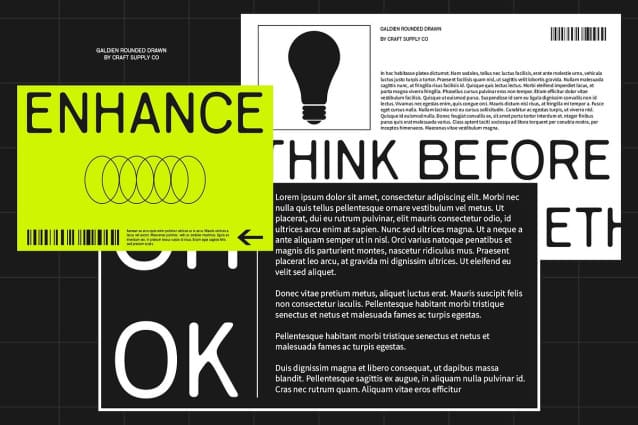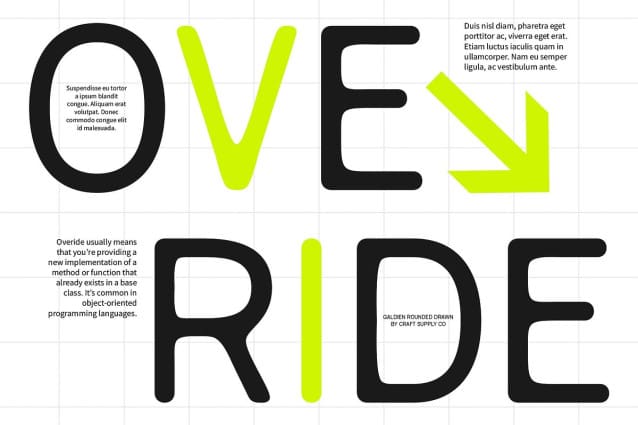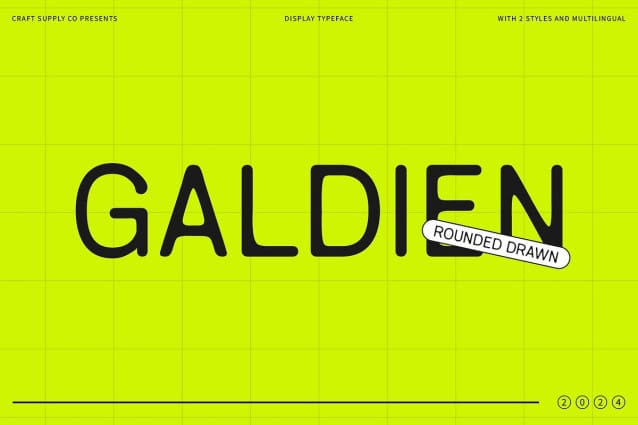
Galdien Rounded Drawn Font
Galdien Rounded Drawn Font is a modern sans-serif font that combines grotesque, rounded shapes with a distinctive drawn effect. The smooth, rounded edges bring a contemporary feel, while the drawn texture adds a personal, handcrafted touch. This unique combination offers a blend of modern design and artistic warmth, making it a standout choice for creative projects.
Handcrafted Texture for a Personal Touch The drawn effect in a rounded drawn font adds an artisanal quality, giving it a unique, handcrafted appearance. This texture brings a sense of individuality and creativity, perfect for designs that aim to convey a more personal and approachable aesthetic.
Ideal for Creative Branding and Warm Visuals Whether used in branding, promotional materials, or creative projects, this rounded drawn font delivers a warm, yet modern visual impact. Its rounded shapes and drawn effect ensure that your designs strike a perfect balance between contemporary style and artistic charm.
Versatile for Modern and Artistic Designs This drawn rounded font’s blend of grotesque forms and handcrafted texture makes it versatile across various design applications. From unique branding to artistic promotional materials, this font offers a modern, yet warm visual presence that enhances any project seeking a creative and inviting look.